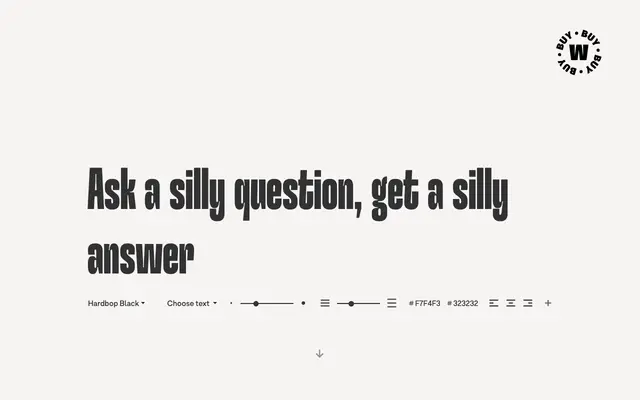
Hardbop
A condensed display grotesque by Mauro Andrés, drawn from jazz-era Blue Note record cover design and hand-painted sign lettering.
Eight weights from Thin to Black make up this poster-oriented family, with exaggerated counterforms and terminals referencing both classic compressed grotesques like Impact and Bebas and the bold graphic language of Reid Miles's Blue Note sleeve designs. Japanese jazz album covers of the 1970s also inform its character, giving it a particular attitude suited to titles, covers and large-scale applications. Not designed for running text, it is built for contexts where visibility is the primary concern.
A condensed display typeface with grotesque DNA, drawing on hand-painted signage, Impact, and Bebas. Its exaggerated counterforms and extreme weight range put it squarely in the display category rather than a functional grotesque.